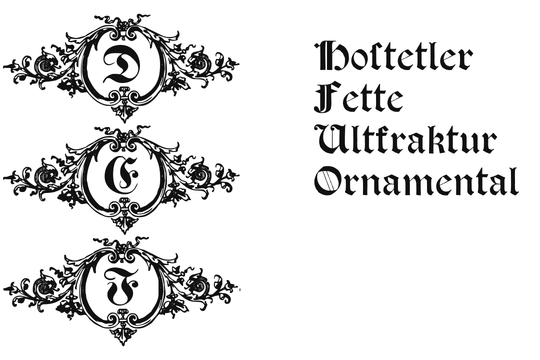
Hostetler Fette Altfraktur Ornamental
I digitized and revitalize Hostetler Fette Ultfraktur Ornamental from the classical type specimen book from Rudolf Hostetler. He was a Swiss type designer, author of “The Printer’s Terms” designed by Jan Tschichold, of “Technical Terms of the Printing Industry” (5th edition was printed in 1995), and of "Type: eine Auswahl guter Drucktypen; 80 Alphabete klassischer und moderner Schriften" (Teufen, Ausser-Rhoden: Niggli, 1958). He also wrote "Type: A Selection of Types" (1949, fgm books, R. Hostettler, E. Kopley, H. Strehler Publ., St. Gallen and London) in which he highlights type made by European houses such as Haas, Enschedé, Deberny and Nebiolo. Jost Hochuli wrote his biography.